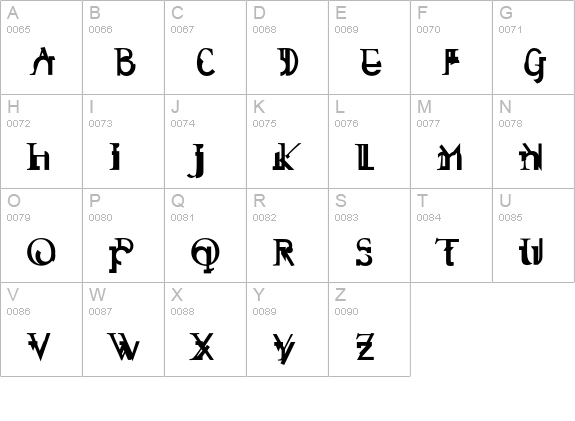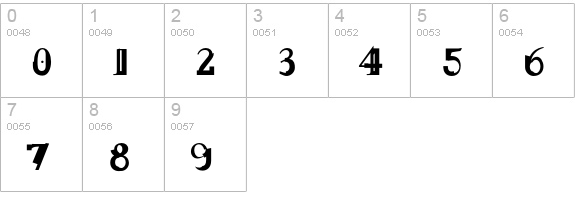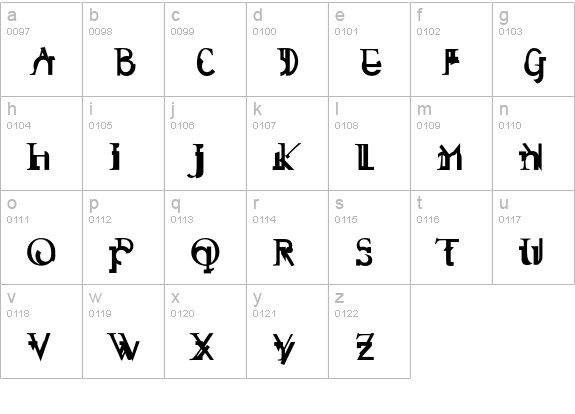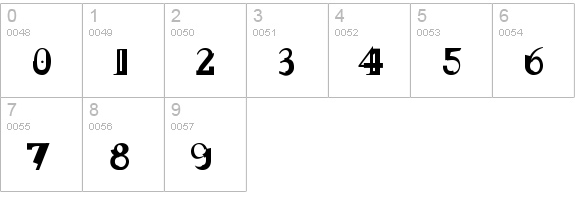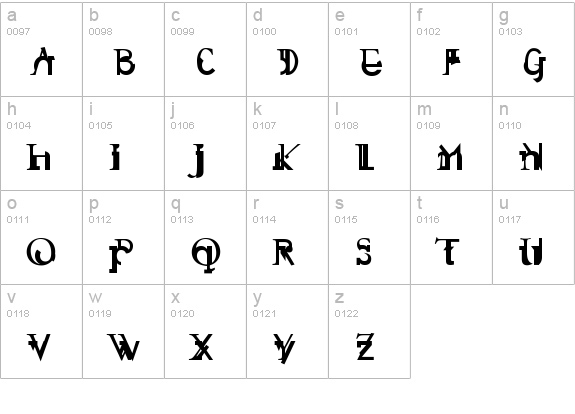
Entropy Font Details
The Entropy font is a unique and captivating typeface that beautifully combines modern aesthetics with a touch of chaos. Its intricate design features a mesmerizing blend of sharp edges and flowing lines, creating a visual representation of entropy in typography. This font is perfect for projects that seek to stand out and make a bold statement. Best of all, Entropy font is completely free to download at FontsMarket.com. Whether you're working on a creative design project or simply looking to add a touch of edginess to your visuals, this font is sure to make a lasting impression. Embrace the beauty of entropy and let this stunning font elevate your designs to new heights.